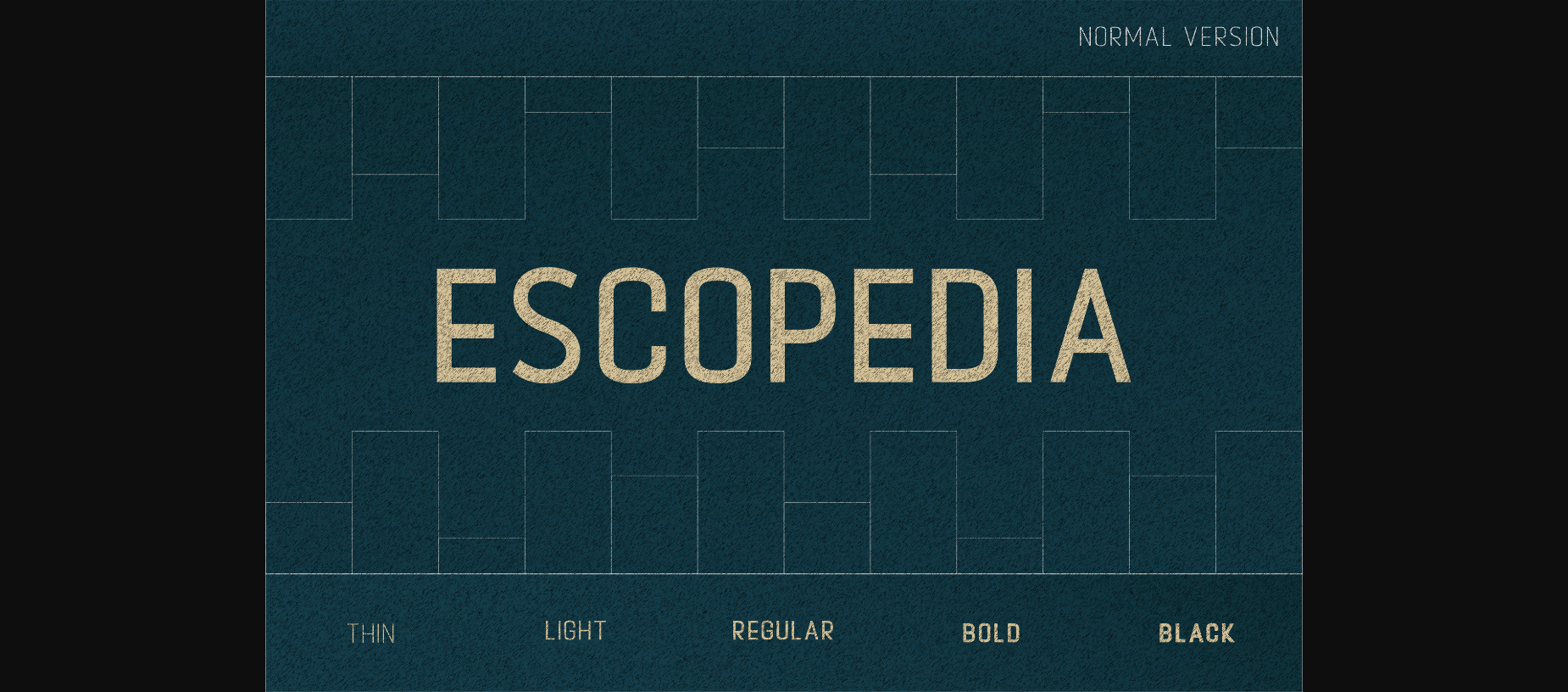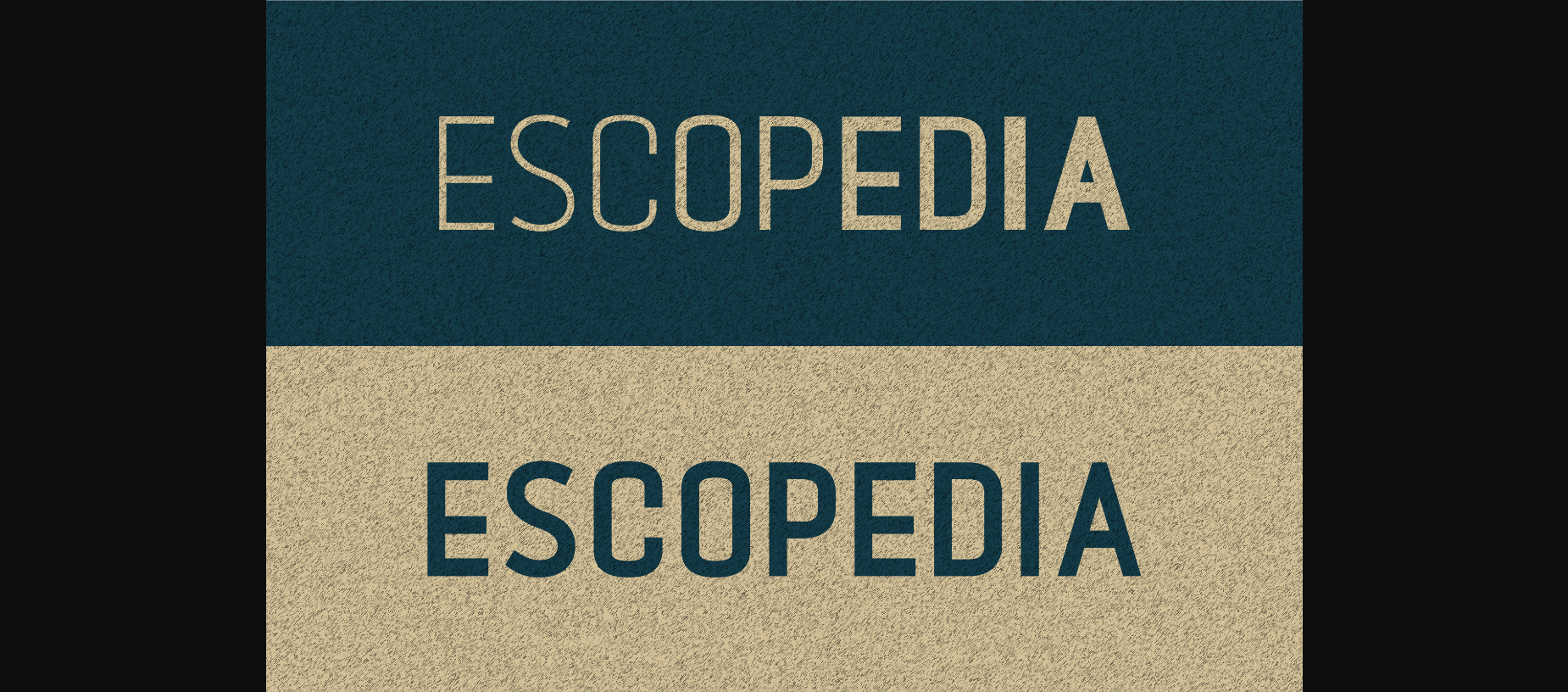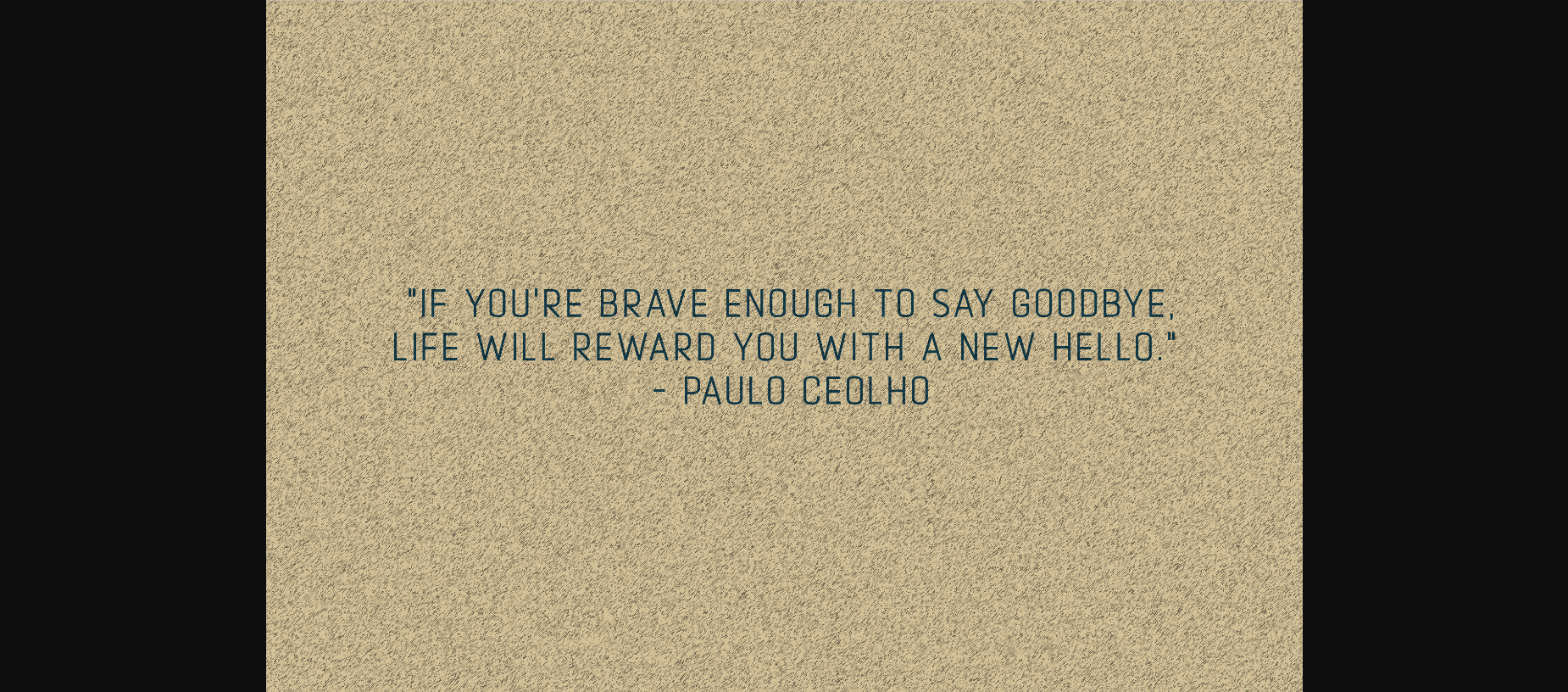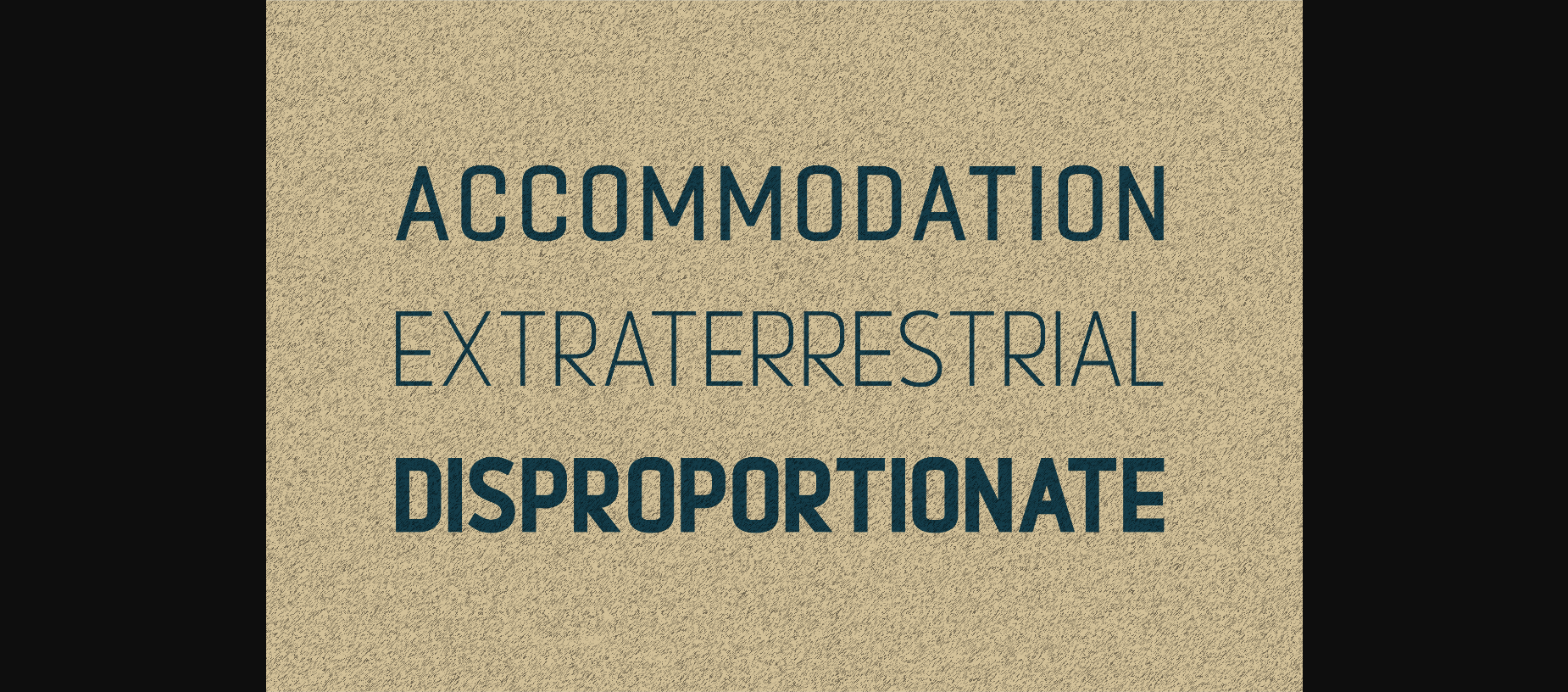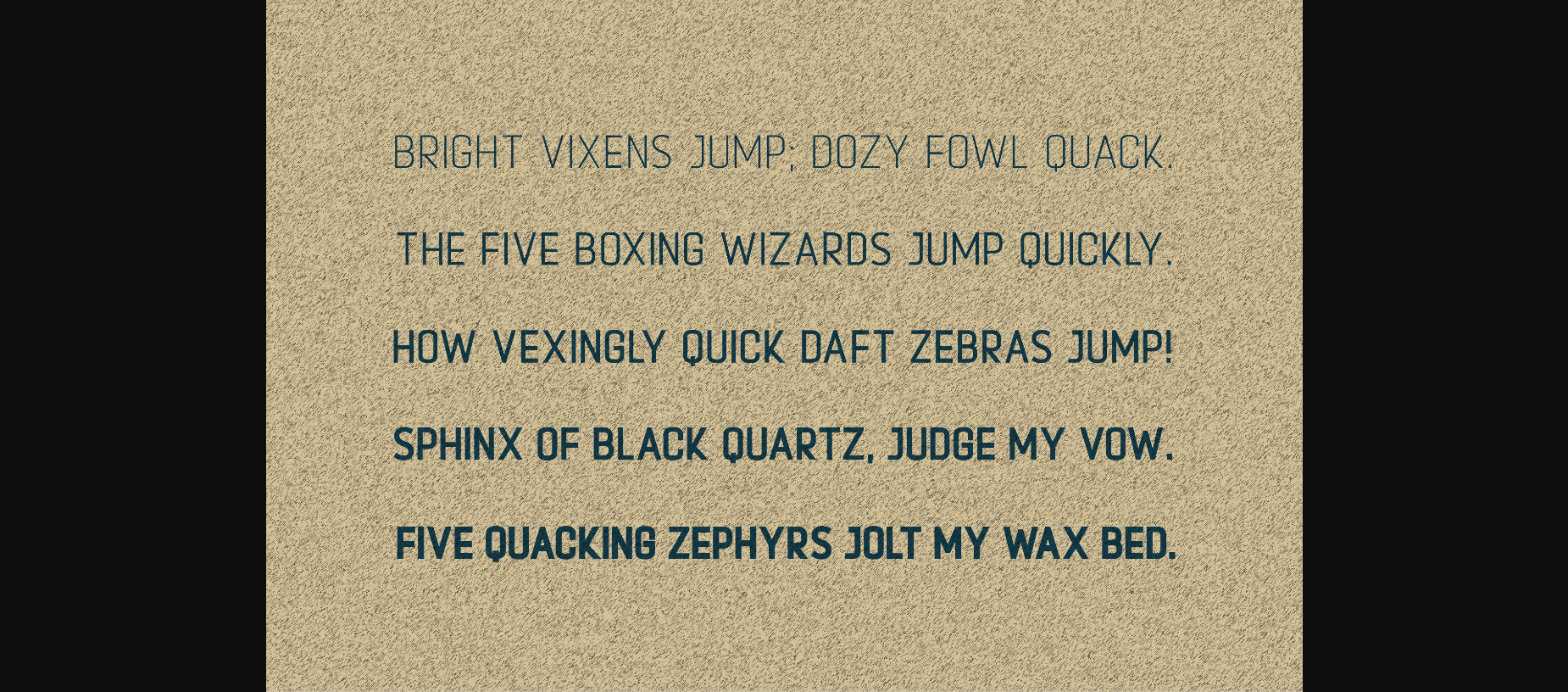
About Escopedia Font
Crafted with unwavering attention to detail, Escopedia boasts a collection of five distinct weights – Thin, Light, Regular, Bold, and Black. This diversity empowers you to seamlessly adapt your designs to varying contexts, from striking logos to captivating book covers.